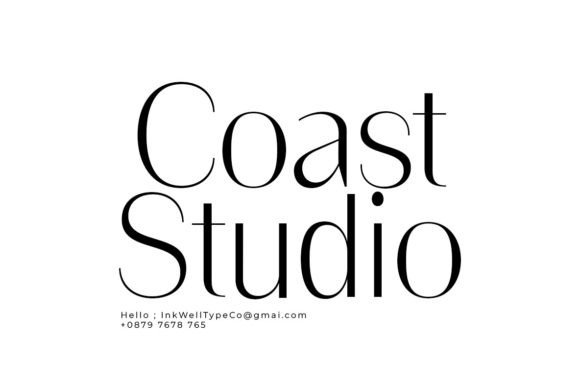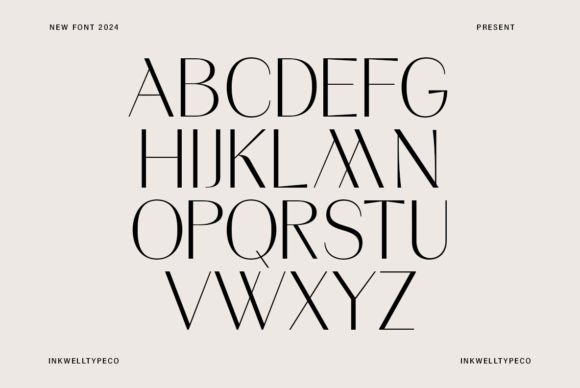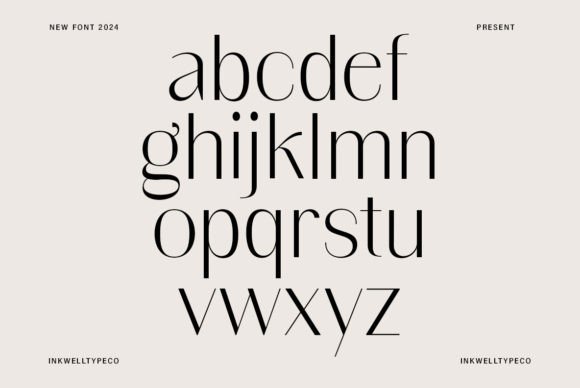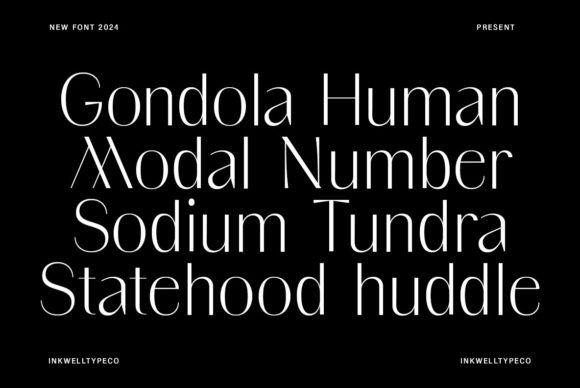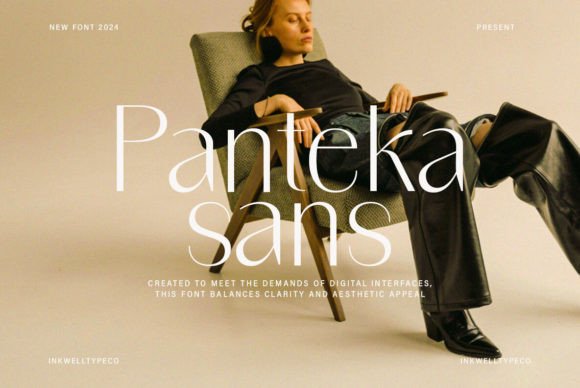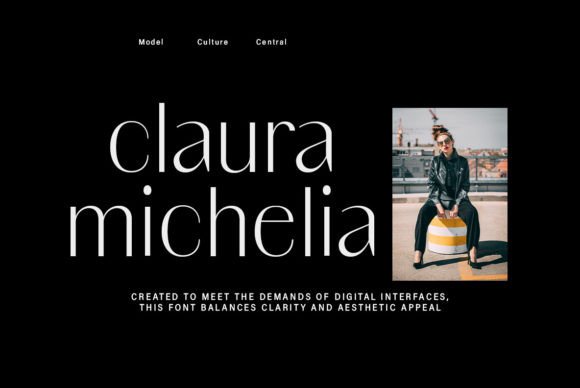
Introduction to Panteka Sans Font Font
Fonts play a crucial role in design, and the Panteka Sans Font font is a typeface that brings both character and versatility to any project. Whether you’re working on a branding project, a website, or a print design, the Panteka Sans Font font offers a unique style that can elevate your work.
**Panteka Sans** is a sleek, modern typeface designed to meet the needs of digital interfaces.
Balancing clarity and aesthetic appeal, it draws inspiration from contemporary architecture and clean geometric forms Perfect for branding, editorial, and digital design, it delivers a strong yet elegant presence.
Key Features of Panteka Sans Font Font
Why Choose Panteka Sans Font Font?
The Panteka Sans Font font is more than just a typeface – it’s a design tool that helps you communicate your message with style and clarity. Its unique character set and versatile design make it suitable for a wide range of applications, from elegant invitations to bold headlines.
With its carefully crafted letterforms and balanced proportions, the Panteka Sans Font font ensures readability and visual appeal across all mediums.
What makes Panteka Sans Font font special?
The Panteka Sans Font font stands out with its unique design, exceptional readability, and versatility across various design applications.